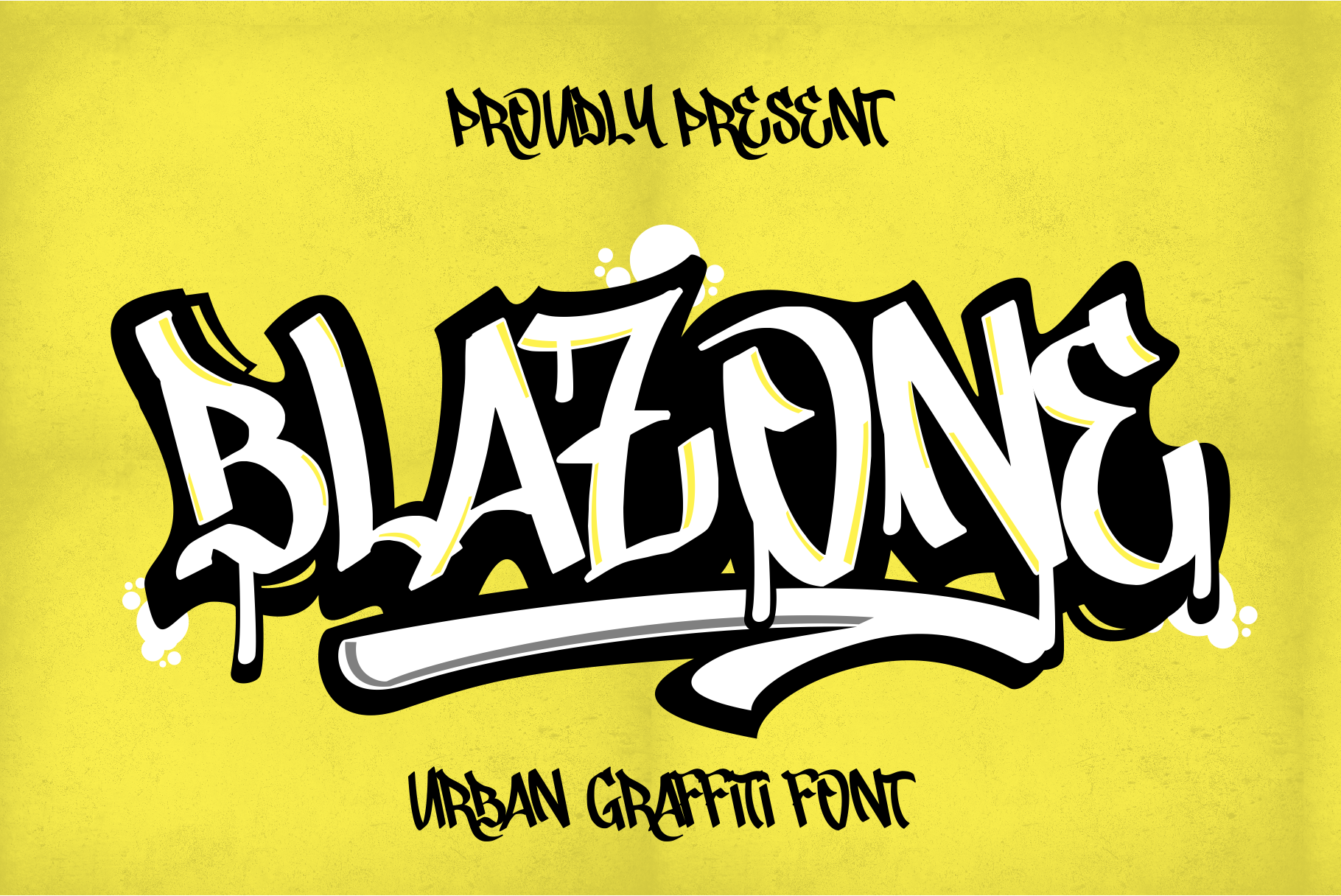
Blazone – Graffiti Font
Blazone is a dynamic graffiti-style font that captures the essence of modern urban culture. Its bold, expressive strokes and street-inspired design make it the perfect choice for logos, branding, posters, and more. Blazone stands out with its raw energy and creative flair, adding a distinctive, edgy vibe to any project. Equipped with ligature features, underline swashes, and multilingual support, this versatile font allows for endless customization and artistic expression. Bring your designs to life with the rebellious and contemporary spirit of Blazone.